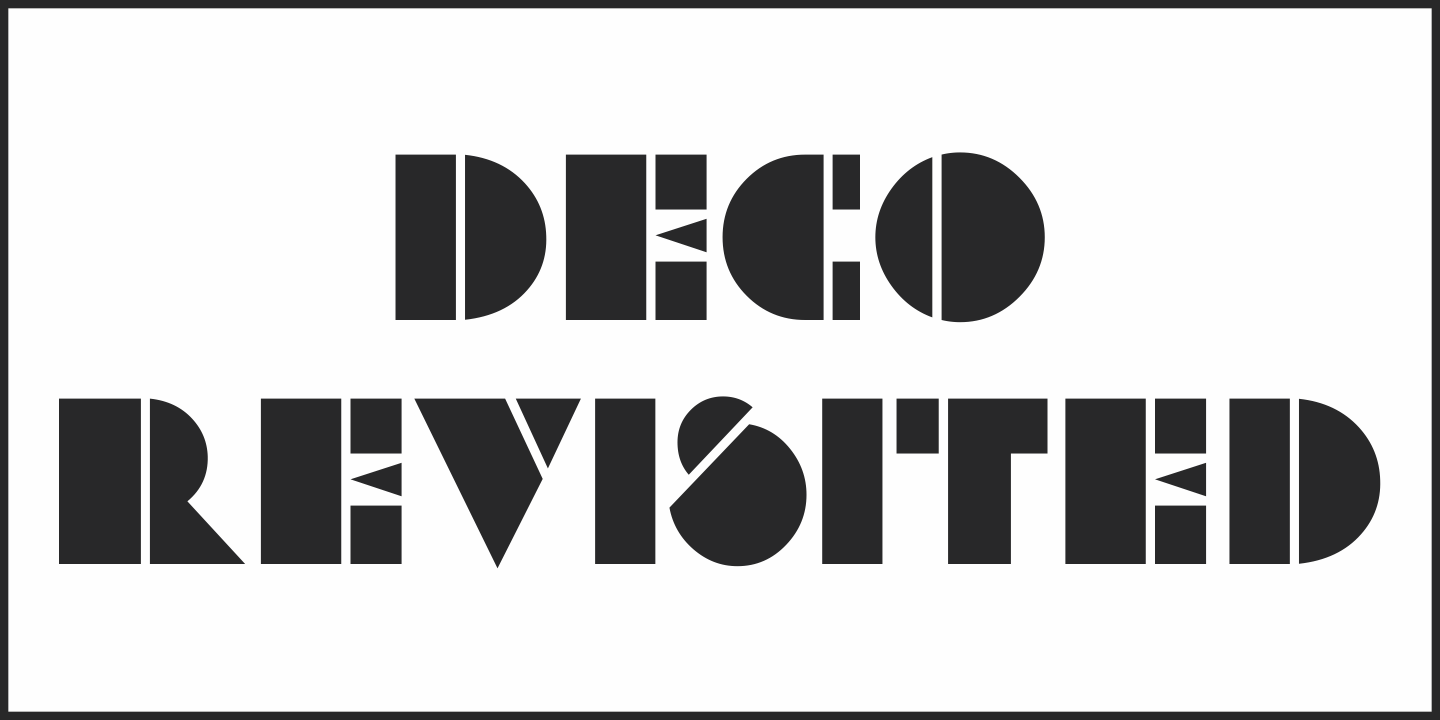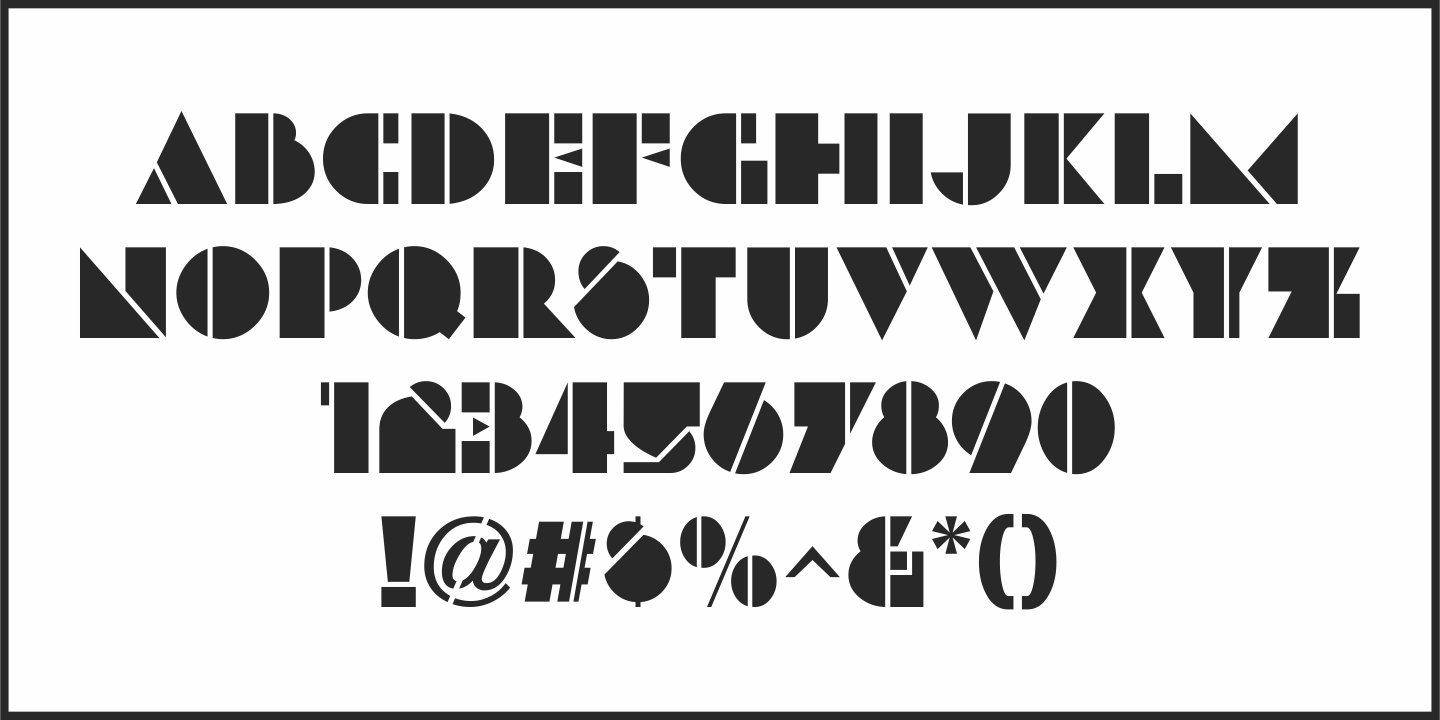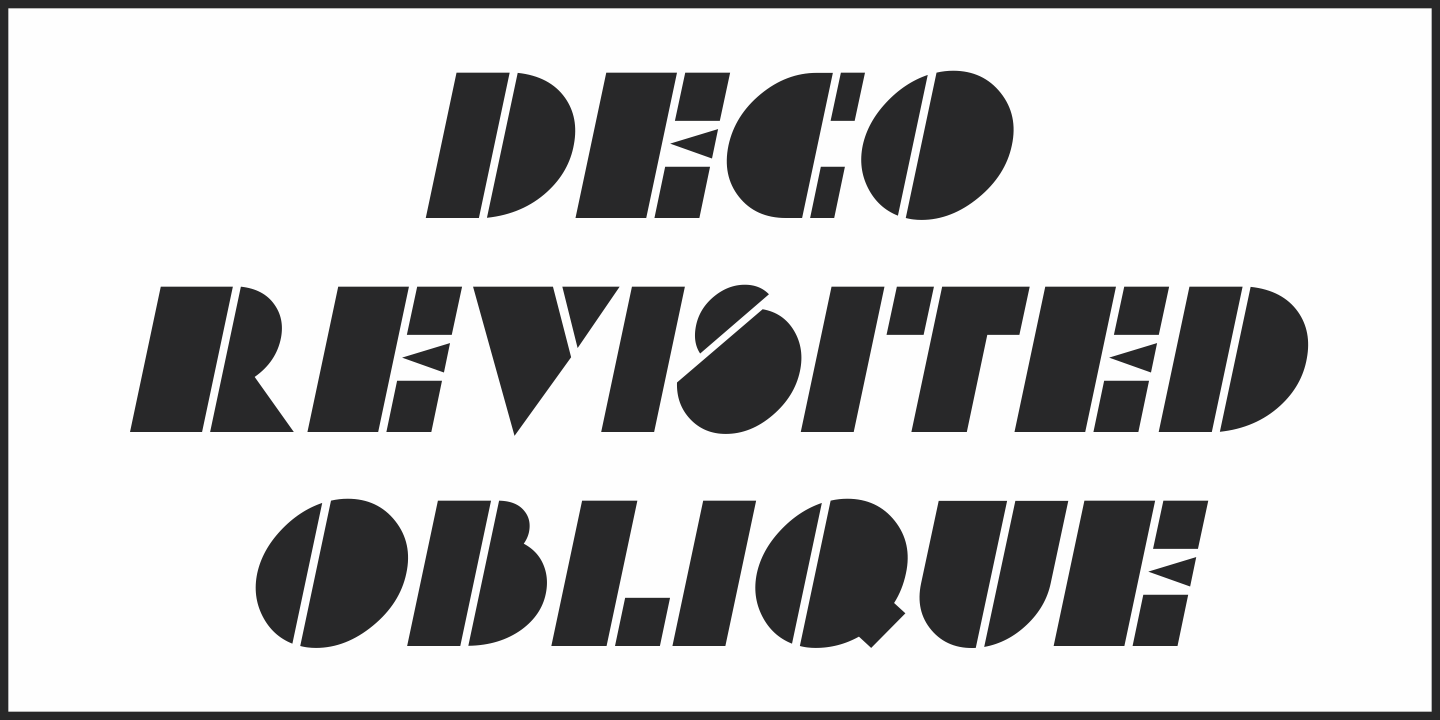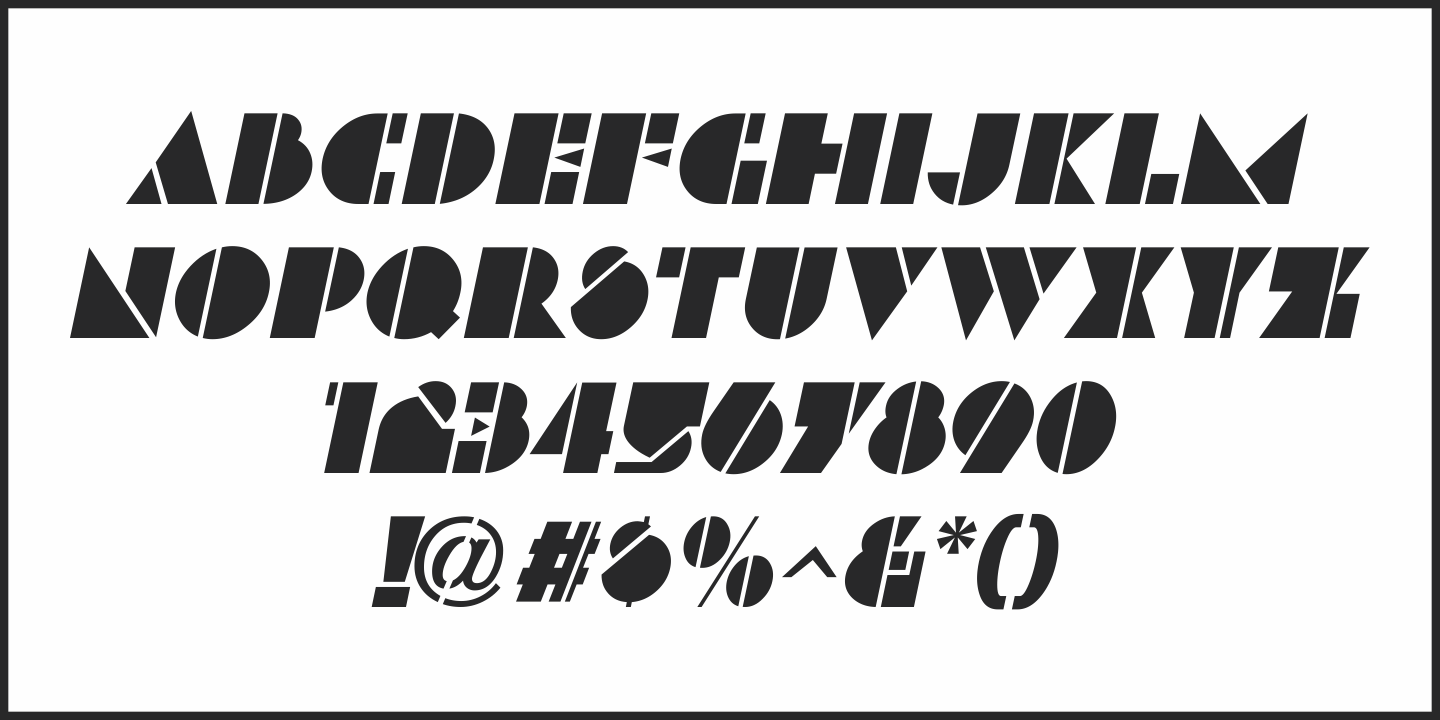
Deco Revisited
Inspired by a retro Art Deco poster as well as many of the true classic Art Deco type designs of the 1930s and 1940s, Deco Revisited JNL is a bold, black, stencil-influenced design with no counters.
Although being a contemporary design, its use in any retro project will truly evoke a feeling for the 'streamline” era.
Deco Revisited JNL is available in both regular and oblique versions.